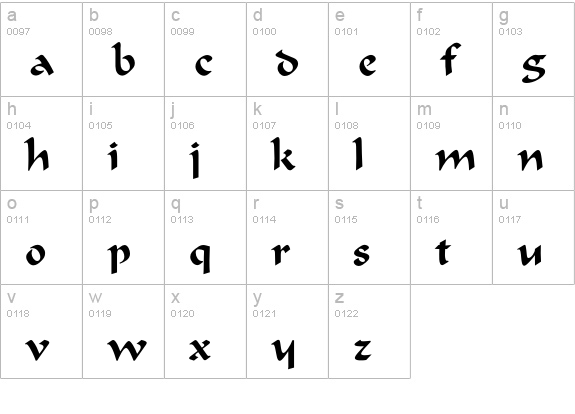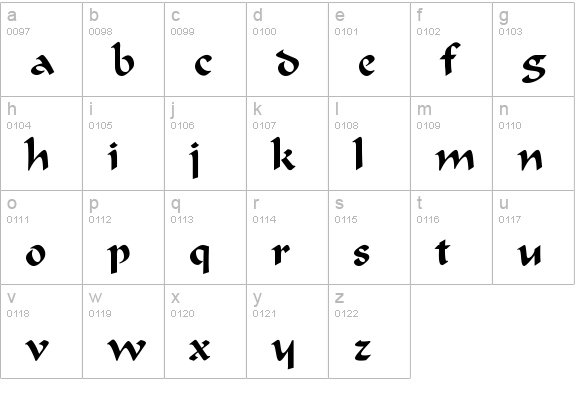
Kashmir Font Details
Introducing Kashmir font, a captivating typeface that seamlessly blends elegance and modernity. With its sleek and refined design, Kashmir exudes sophistication and versatility, making it the perfect choice for a wide range of creative projects. This free font offers a harmonious balance between clean lines and intricate details, resulting in a visually stunning and legible typeface. The carefully crafted characters feature a unique combination of sharp edges and smooth curves, adding a touch of sophistication to any design. Kashmir font is designed to captivate and engage readers, making it ideal for luxurious branding, editorial layouts, packaging designs, and more. Its versatility allows it to effortlessly adapt to various design styles, from minimalistic to bold and impactful. With its availability as a free download at FontsMarket.com, Kashmir font offers accessibility and convenience to designers and typographers worldwide. Whether you are a seasoned professional or an aspiring designer, this font enables you to express your creativity without any limitations. Download Kashmir font for free at FontsMarket.com today and elevate your design projects with its timeless elegance and unmatched versatility. Discover the power of this captivating typeface and unleash your creativity like never before.